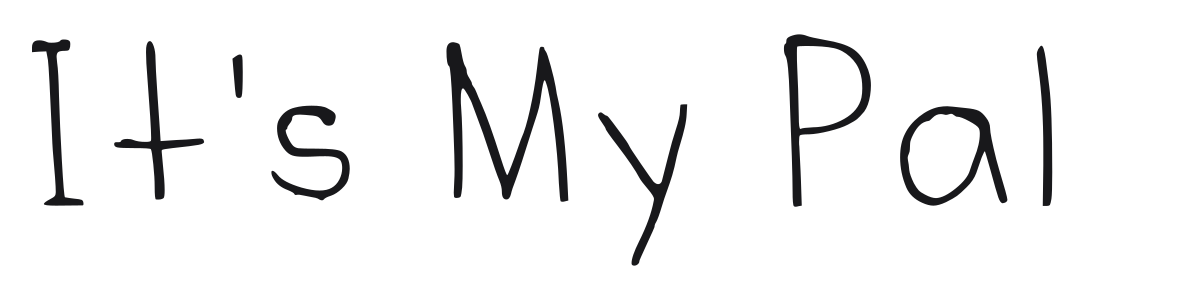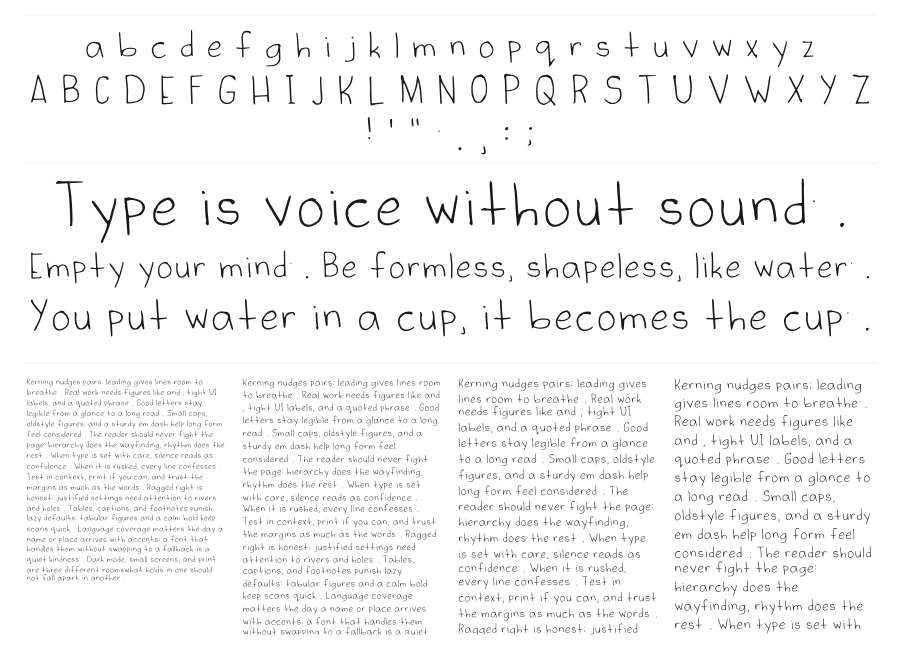
It's My Pal
It's My Pal is a thin handwritten font that captures the look of a quick pen note written in a personal journal. The slightly wobbly strokes and irregular spacing give it a genuine, unpolished character that feels warm rather than sloppy. It works well anywhere an informal, human touch is needed.